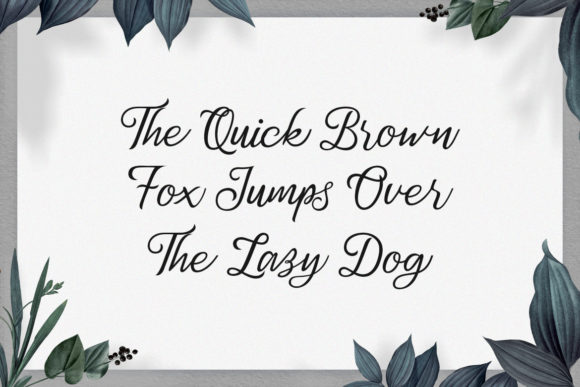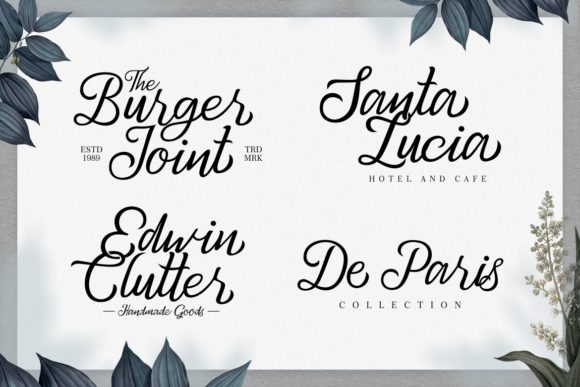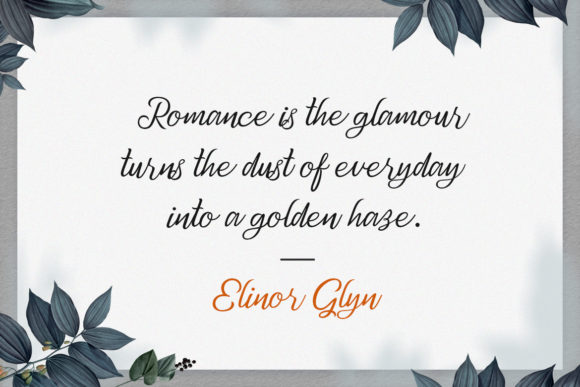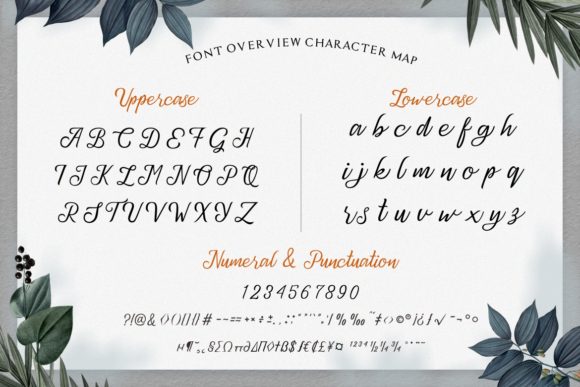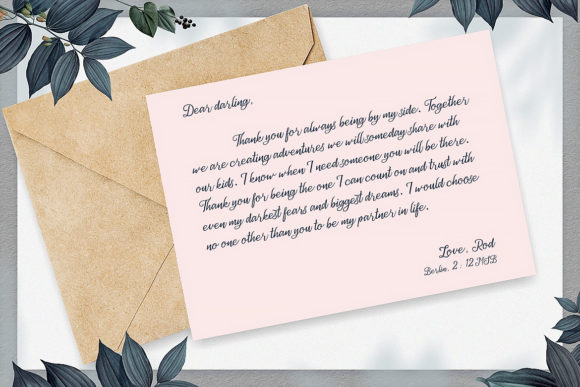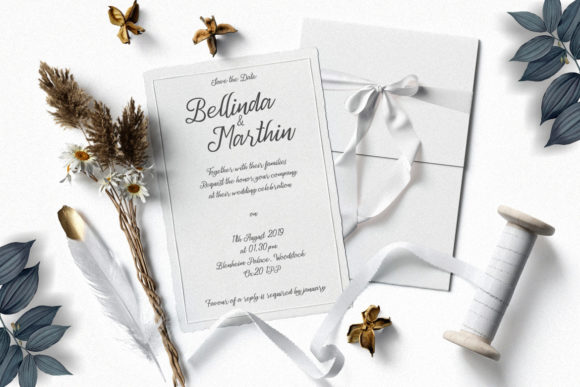
Atlana Font
Certainly! Atlana is a font that embodies a perfect blend of elegance and charm with its exquisite handwritten style. Its unique and distinct appearance is bound to ignite your creative spark and inspire you to embark on a journey of crafting stunning designs.
Imagine the magic of Atlana gracing your wedding invitations. The font’s delicate curves and graceful lines lend a touch of sophistication to every detail, ensuring that your invitations not only convey the essential information but also capture the essence of your special day. Your guests will be captivated by the beauty of Atlana as they receive your invitations.
But the allure of Atlana doesn’t stop there. When it comes to creating greeting cards, this font opens up a world of creative possibilities. Express your sentiments and well-wishes with a touch of elegance, whether it’s a birthday, anniversary, or any other occasion. Atlana’s handwritten charm adds a personal and heartfelt touch to your messages, making your cards truly stand out.
And in the realm of social media, where attention-grabbing content is key, Atlana shines brightly. Craft eye-catching posts that instantly draw your audience in. Whether it’s a quote, an announcement, or a promotional message, Atlana’s unique look ensures that your content is visually appealing and leaves a lasting impression.
A notable feature of Atlana is its PUA encoding, which grants you easy access to a plethora of glyphs and swashes. This means you can effortlessly enhance your designs with intricate details and decorative elements. It’s like having a toolkit of creativity at your fingertips, allowing you to experiment and customize to your heart’s content.
Incorporating Atlana into your creative projects is a surefire way to infuse them with elegance, charm, and a touch of sophistication. Whether you’re designing wedding materials, greeting cards, or social media content, Atlana’s unique style will elevate your creations and make them truly remarkable. Let the magic of Atlana guide your creativity and watch as your designs come to life in the most exquisite way possible.